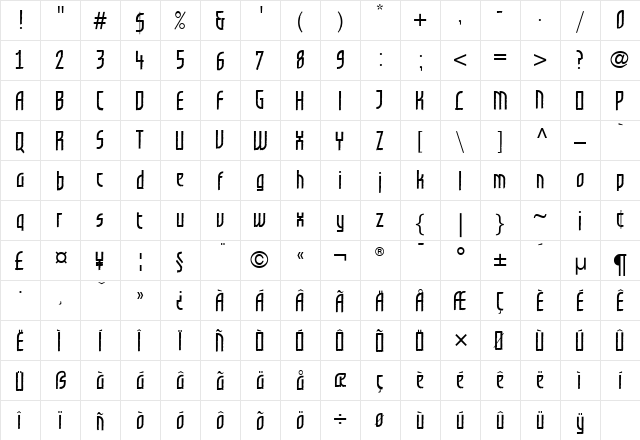
GrafiloneLLSemiBold Medium Font Preview
GrafiloneLLSemiBold Medium
GrafiloneLLSemiBold Medium Font Details
Design Context for GrafiloneLLSemiBold Typeface
GrafiloneLLSemiBold offers clean, dependable letterforms without strong stylistic allegiance, making it a practical choice for designers who need flexibility. The heavy weight commands attention and anchors typographic hierarchies.